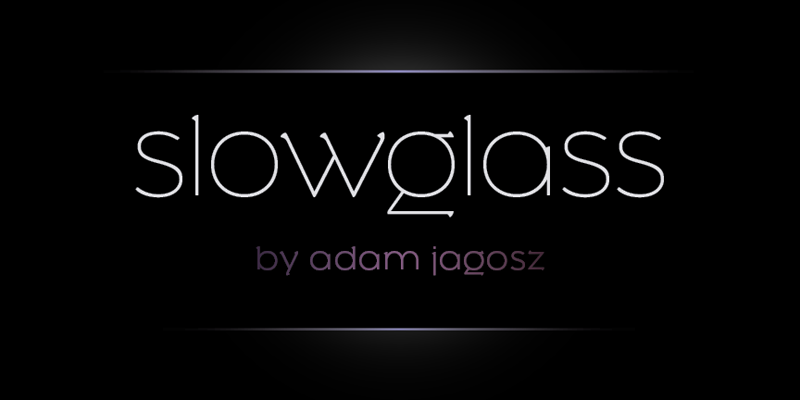
Font name: | Slowglass |
Author: | Adam Jagosz |
Note by Adam Jagosz | |
Slowglass is a futuristic geometric display face with a retro twist. It features full punctuation, a broad set of diacritics, localization features for Catalan and the Turkic languages, and four sets of figures, old-style and lining, tabular and proportional. This design is unicase, with most of the letters taking the form traditionally considered lowercase. Most of the punctuation, as well as the lining numerals, are aligned with the x-height. If you need a commercial licence, please head to https://www.creativefabrica.com/product/slowglass/ref/63246/ |